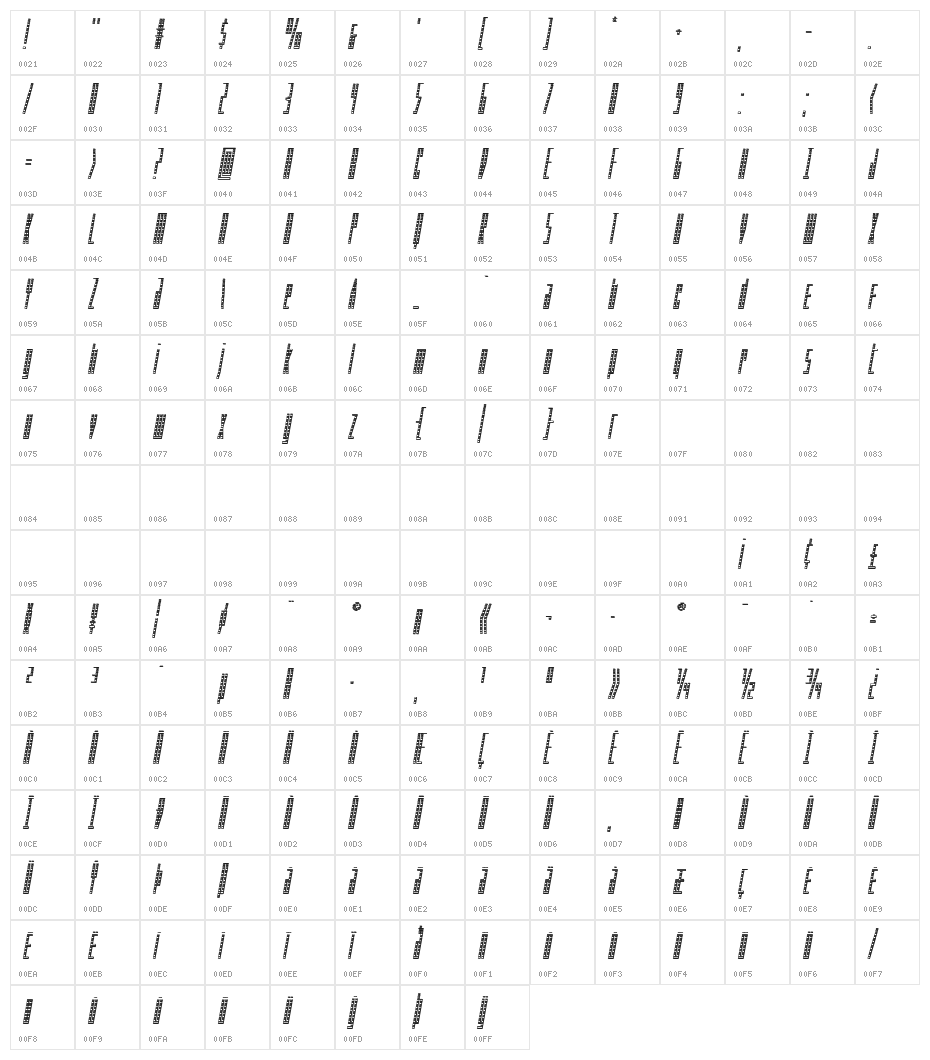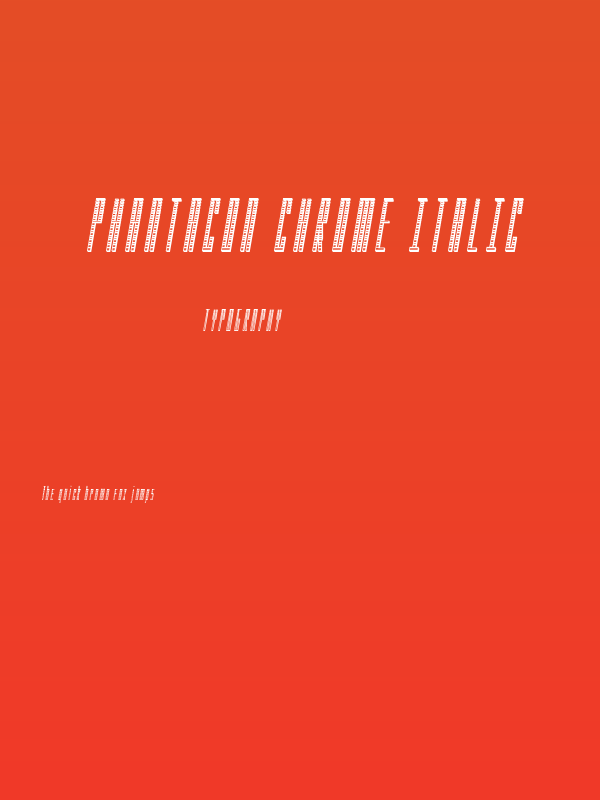
Phantacon Chrome Italic Font
Phantacon Chrome Italic Description
This font features a bold, futuristic design with a distinct chrome-like appearance. The characters are elongated and slightly italicized, giving a sense of motion and modernity. The font includes a unique pattern within each letter, resembling a metallic texture that adds depth and dimension. The uppercase and lowercase letters maintain a consistent style, with sharp angles and clean lines. Numbers and special characters are designed to match the overall aesthetic, ensuring a cohesive look across all text. The font's design is eye-catching and suitable for projects that require a strong, contemporary visual impact.
| Proposed Projects | Ideal for sci-fi themed posters, video game titles, tech branding, and futuristic event invitations. |